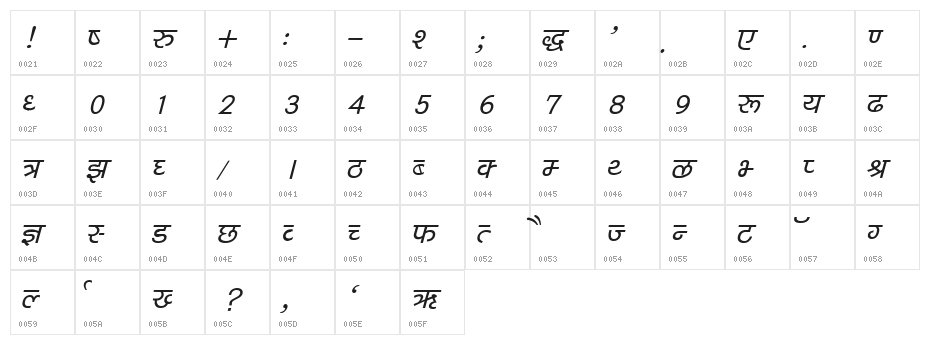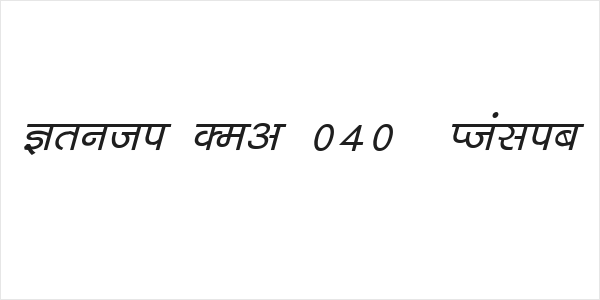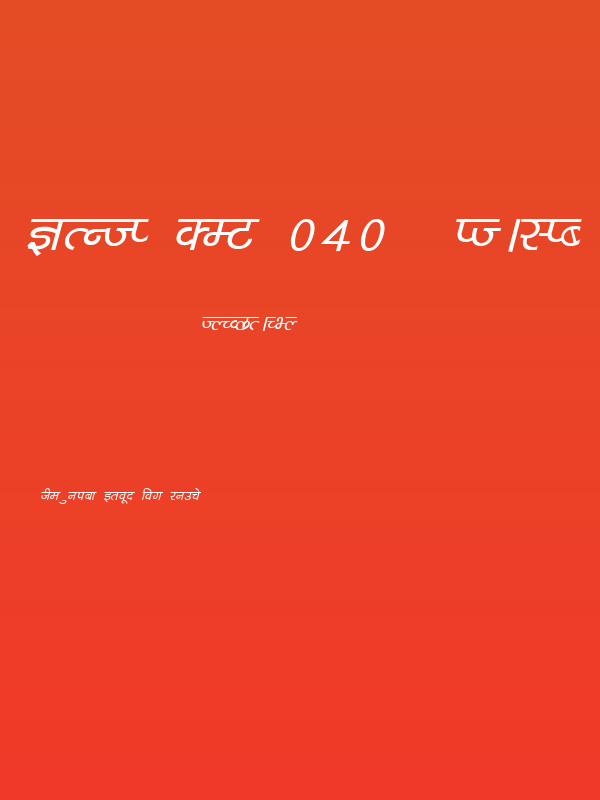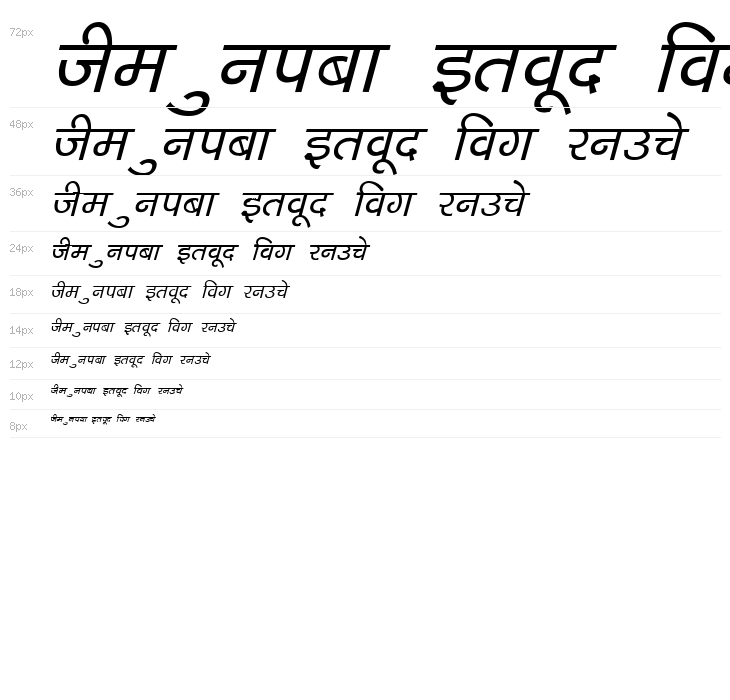
Kruti Dev 040 Italic Font
Kruti Dev 040 Italic Description
This font features a distinctive italic style with a flowing and cursive appearance, primarily used for Devanagari script. The characters exhibit a consistent slant, enhancing the dynamic and fluid nature of the text. The strokes are moderately thick, providing a balanced contrast that maintains readability while adding a touch of elegance. The numerals and special characters are designed to complement the script, maintaining the same italicized and flowing characteristics. This font is well-suited for creative and artistic projects where a traditional yet stylish look is desired.
| Overall Style | Traditional |
| Use Case | Headlines, Artistic projects, Cultural publications |
| Proposed Projects | Ideal for artistic projects, invitations, cultural publications, and decorative headings. |